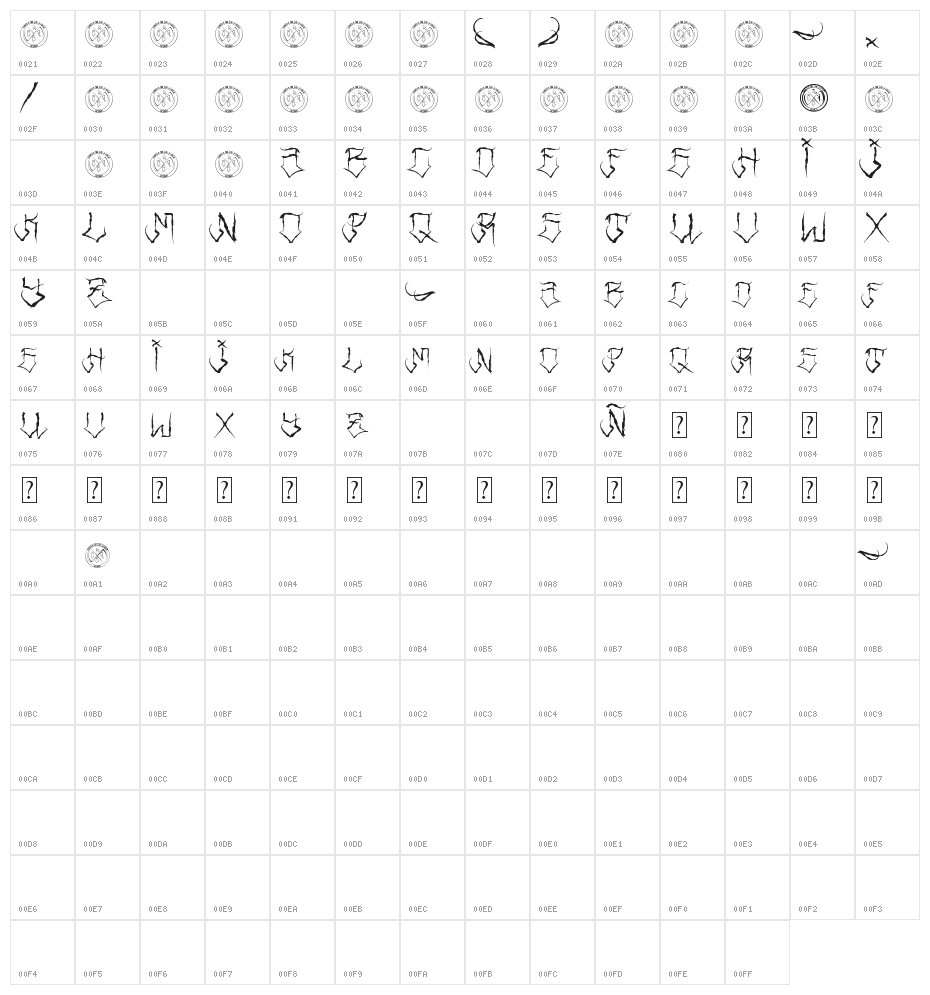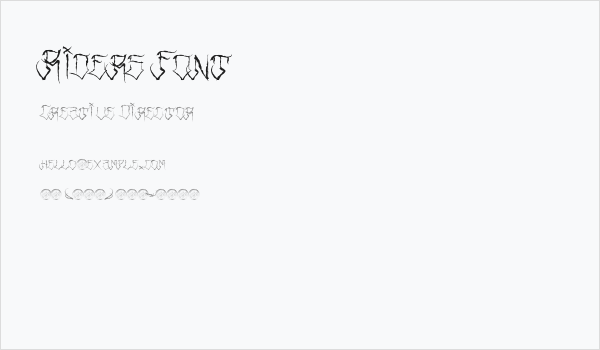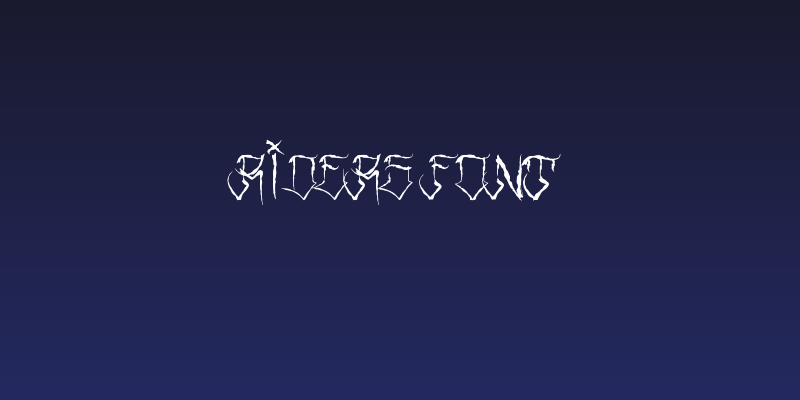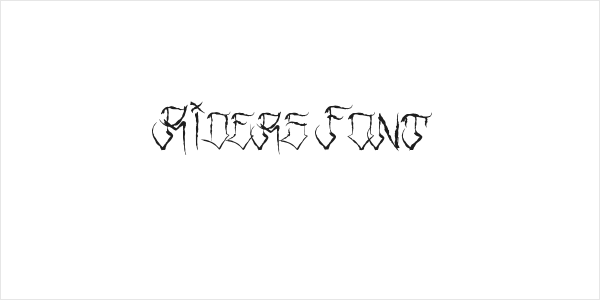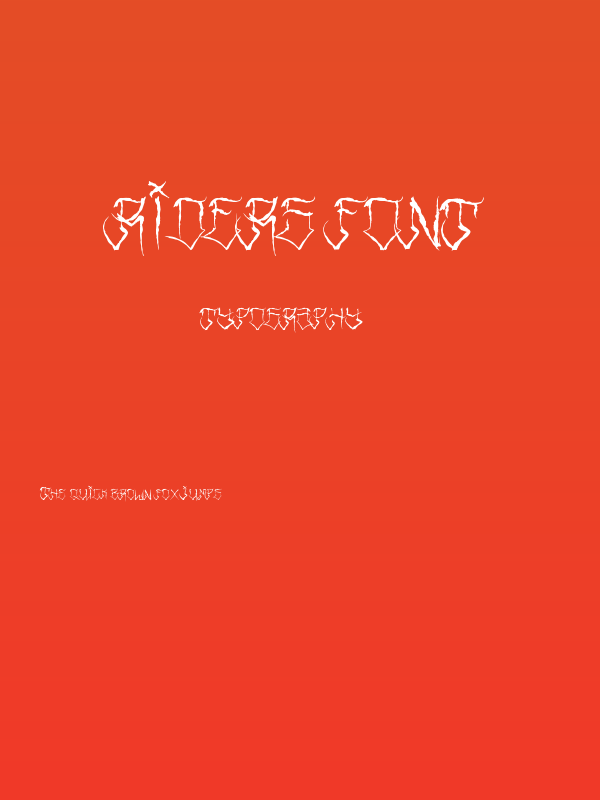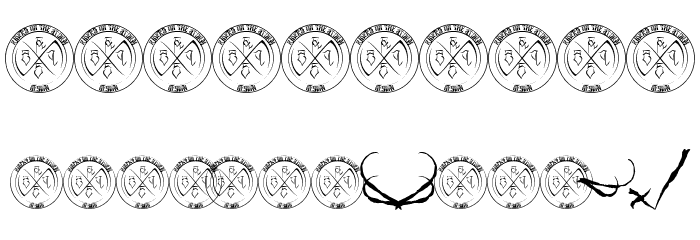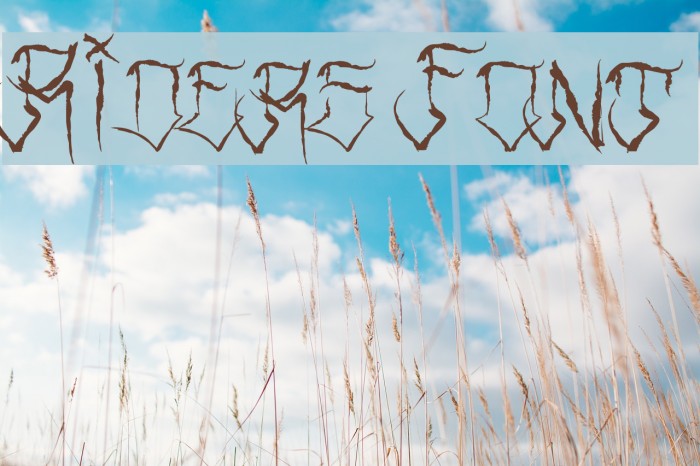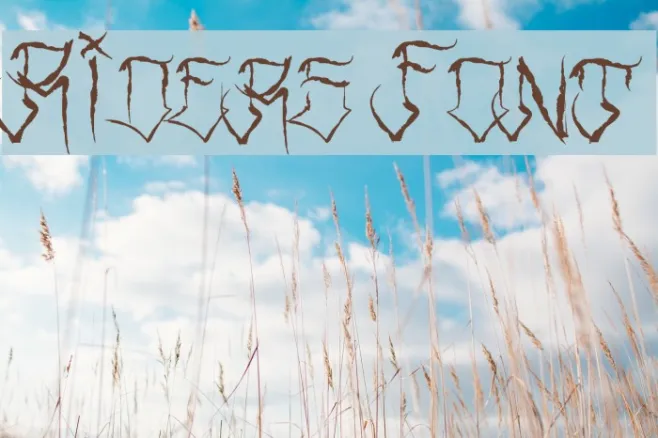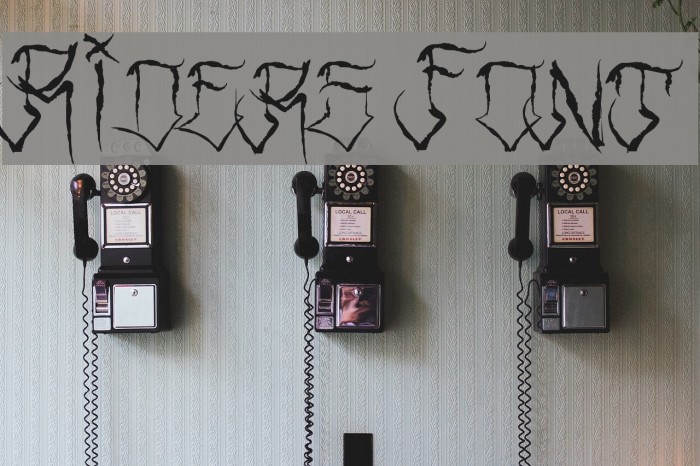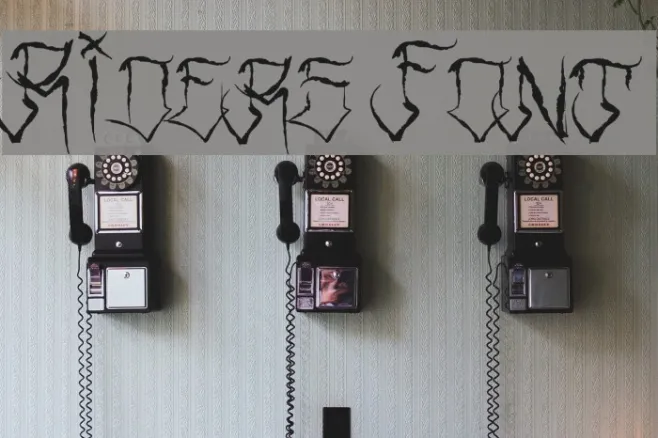
Riders Font Description
This font exhibits a bold and edgy design, characterized by sharp, angular lines and a graffiti-like aesthetic. The uppercase letters are particularly striking, with each character featuring unique, jagged edges that give the font a rebellious and dynamic feel. The lowercase letters maintain this theme, offering a cohesive look throughout. The numbers and special characters are crafted with the same attention to detail, ensuring consistency across all elements. This font's distinctive style makes it ideal for projects that require a bold statement or an urban, street-art vibe.
| Overall Style | Modern, Urban |
| Use Case | Logos, Posters, Album Covers |
| Proposed Projects | Ideal for street art designs, edgy branding, album covers, and urban-themed posters. |